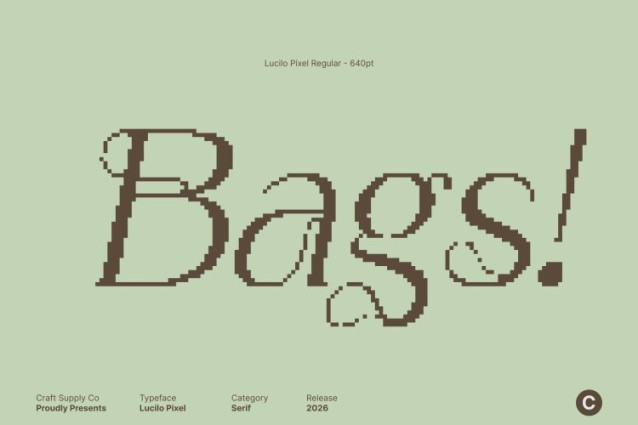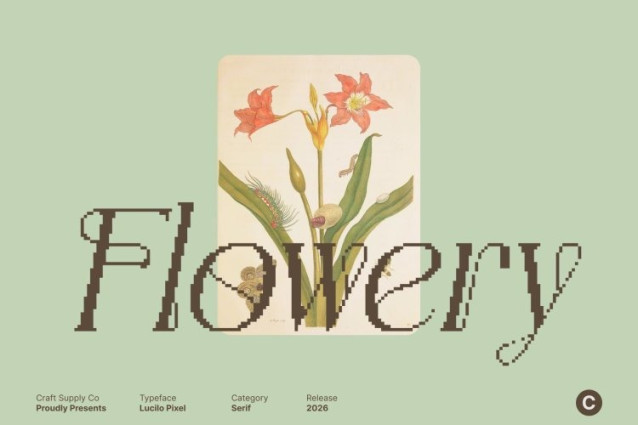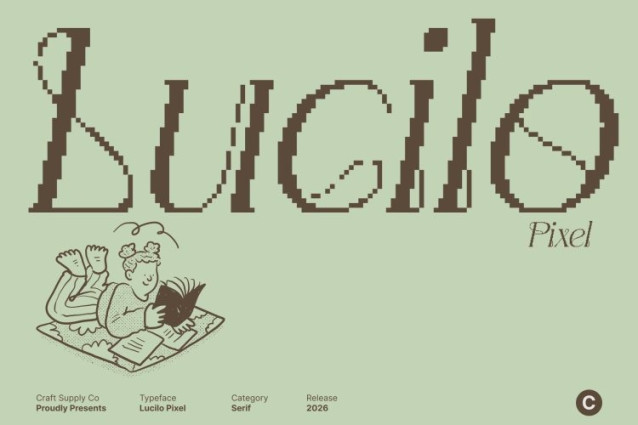
Lucilo Pixel Font
Lucilo Pixel Font This is an Art Nouveau–inspired display font that draws from the graceful beauty and ornamental richness of the Art Nouveau movement, reinterpreted through a precise pixel-based structure. Flowing curves, decorative serif details, and organic forms are carefully translated into a bitmap style, capturing the essence of classic artistry.
Timeless Beauty with Digital Precision
This font delivers captivating beauty and refined elegance through its graceful strokes and delicate details. The pixel construction adds clarity and structure while preserving the softness and sophistication of traditional Art Nouveau typography. This unique blend creates a font that feels both nostalgic and contemporary, elegant yet visually distinctive.
Elegant Vibes with Retro-Digital Charm
Infused with elegant and artistic vibes, this font elevates any design with its refined aesthetic. The contrast between ornamental curves and crisp pixel edges creates a striking visual harmony that commands attention without overpowering the composition. It is ideal for designs that seek class, artistry, and originality.
Perfect for Luxury, Editorial, and Decorative Design
This font brings refinement and grace to wedding invitations, luxury brand logos, editorial layouts, packaging, and artistic visuals. Its versatility and timeless Art Nouveau beauty enhanced by a pixel-inspired execution make it a valuable asset for designers aiming to create sophisticated, visually stunning, and memorable designs. With this font, every project becomes a refined statement of elegance and charm.